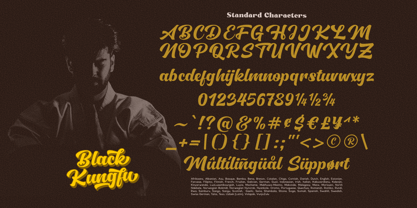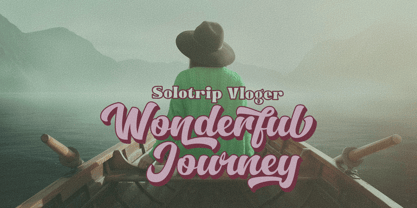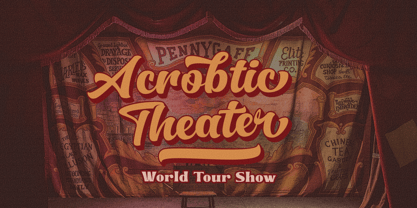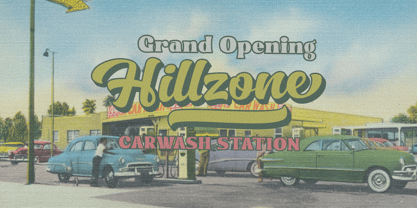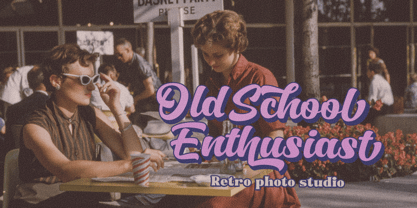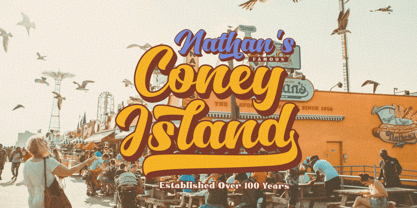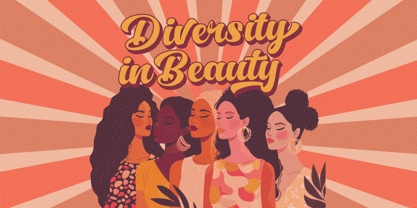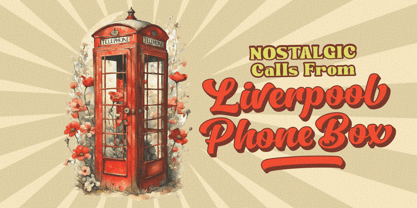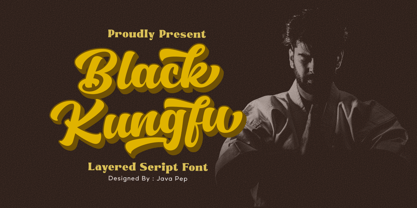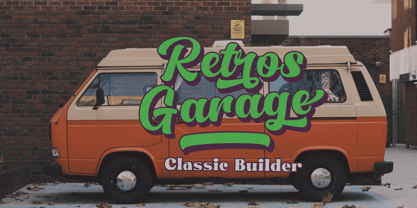
Black Kungfu
The Black Kungfu Font Family was designed by Java Pep and published by Java Pep. Black Kungfu contains 2 styles and family package options. More about this family
Proudly present fresh from the oven, the layered script font called Black Kungfu Font. For use the layered font the regular font must to placing in front of and extruded font for background This font is designed to emphasize beauty and timelessness, so it can be used on classic, modern, and contemporary themes. Black Kungfu font comes with lot of alternate glyphs such as alternate, staylistic alternate, and swash. This font also has multilingual support more than 25 languages.
Features
• Uppercase, lowecase, and punctuations PUA Encoded
• Multilingual Support more than 25 languages
• PUA Encoded
• Opentype features such as alternate, staylistic alternate, and swash